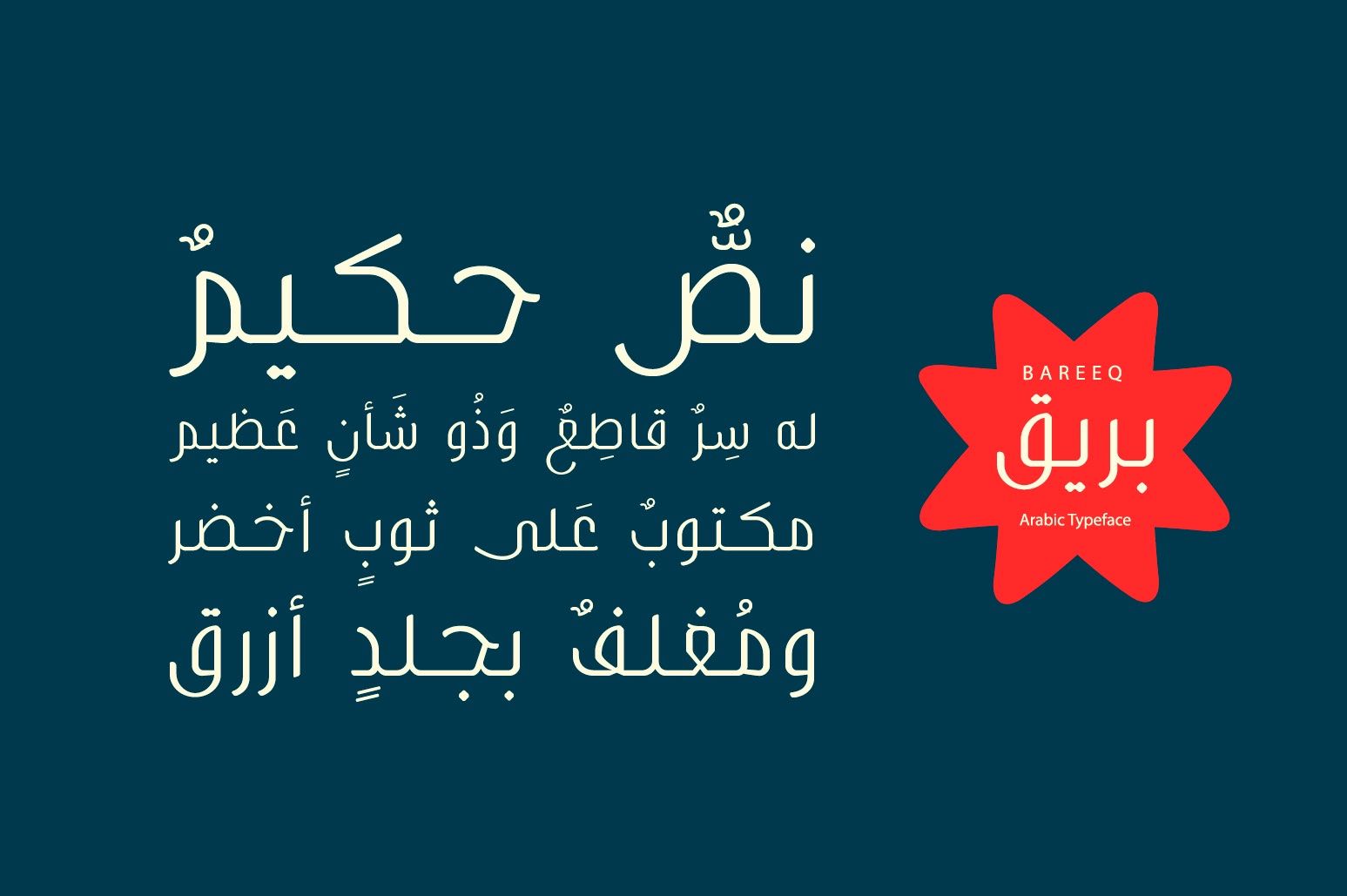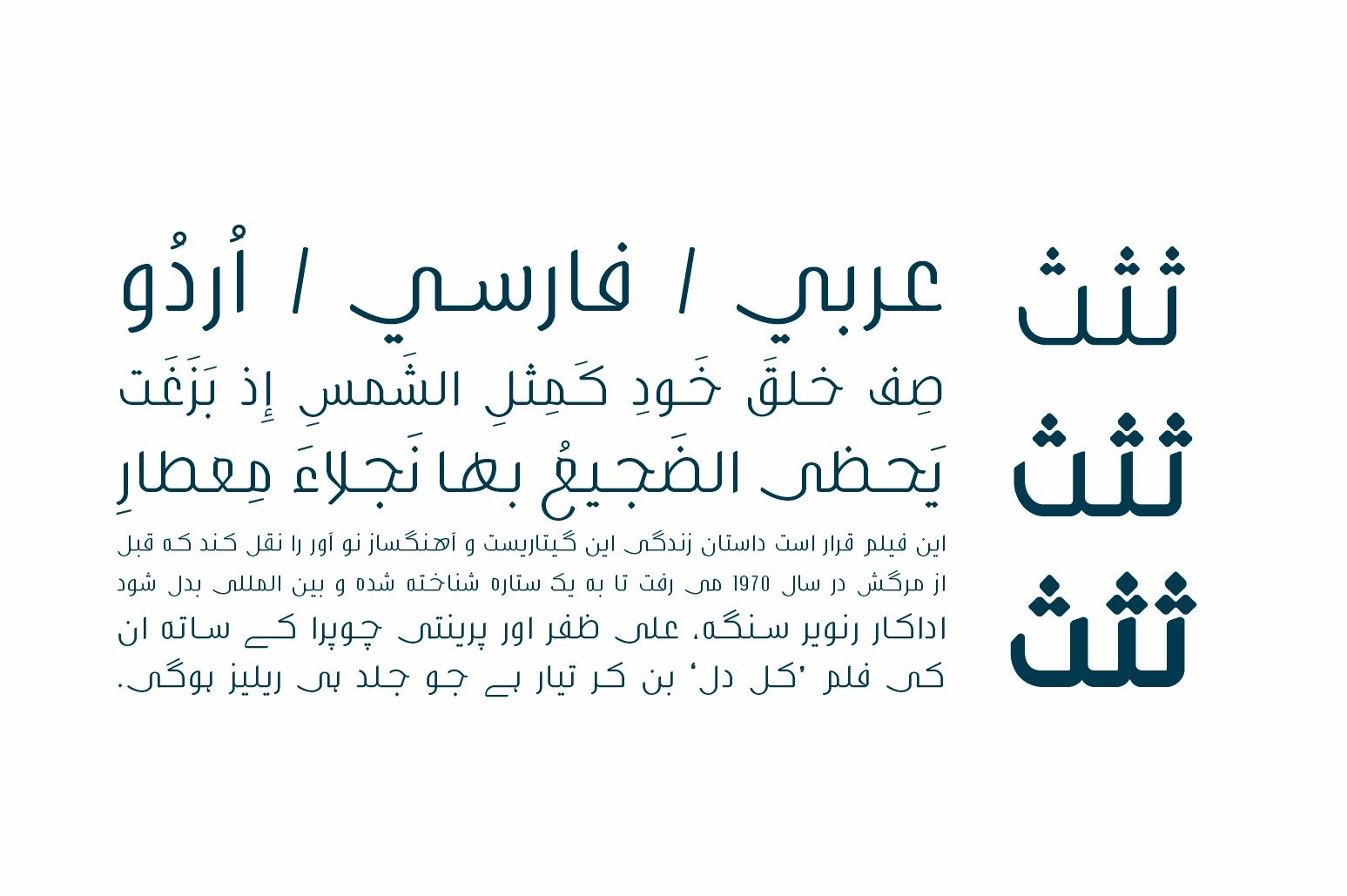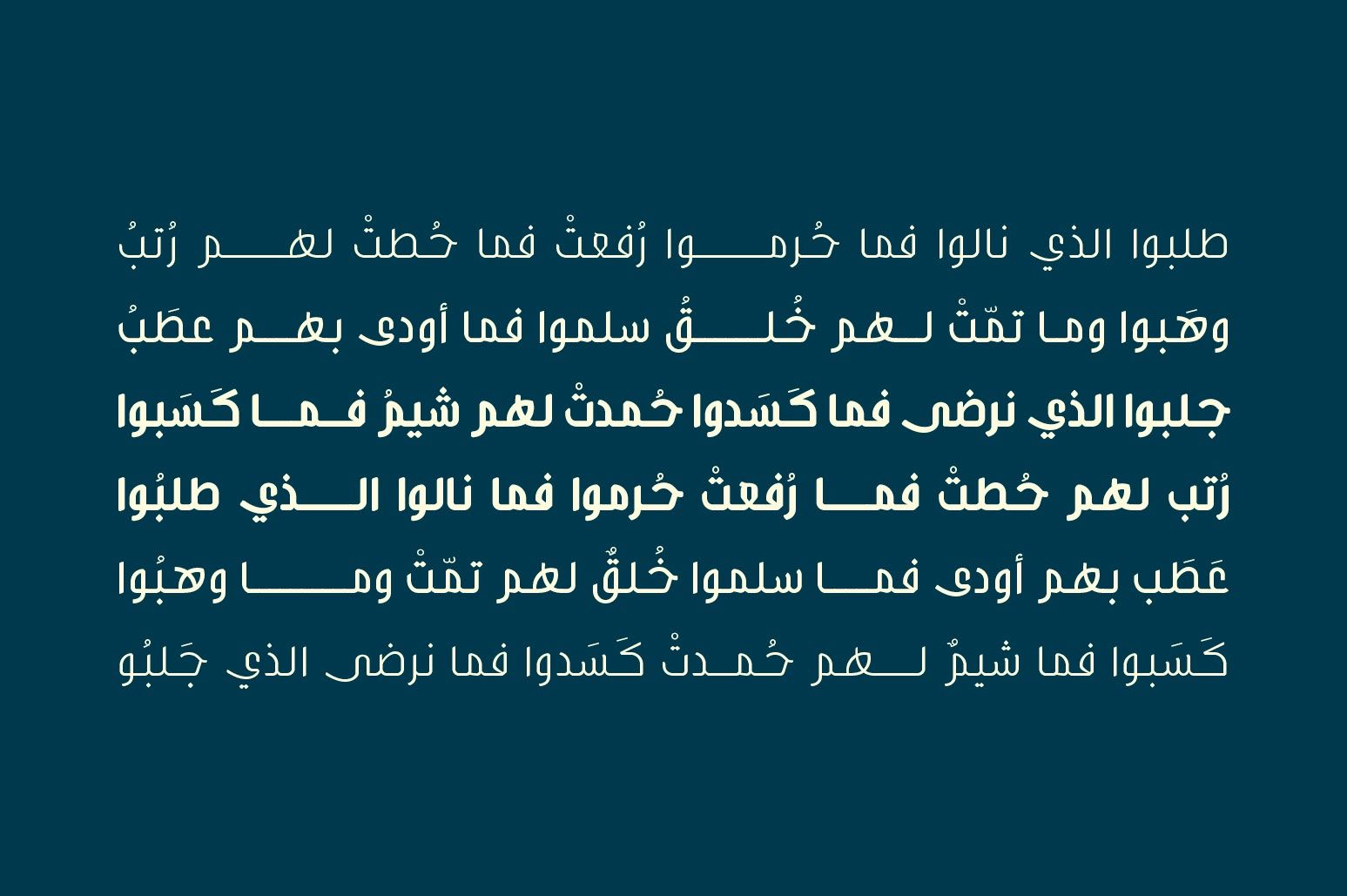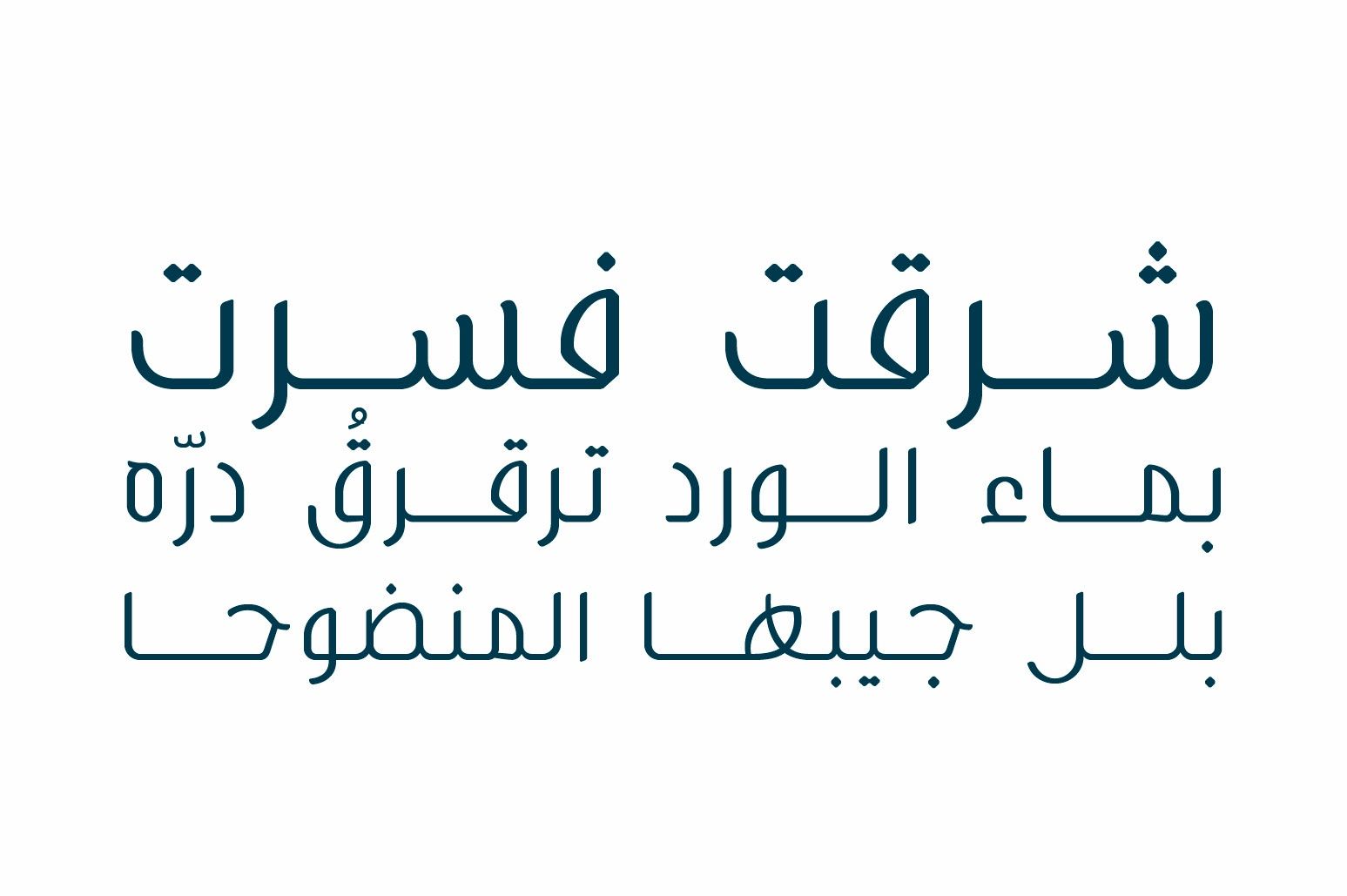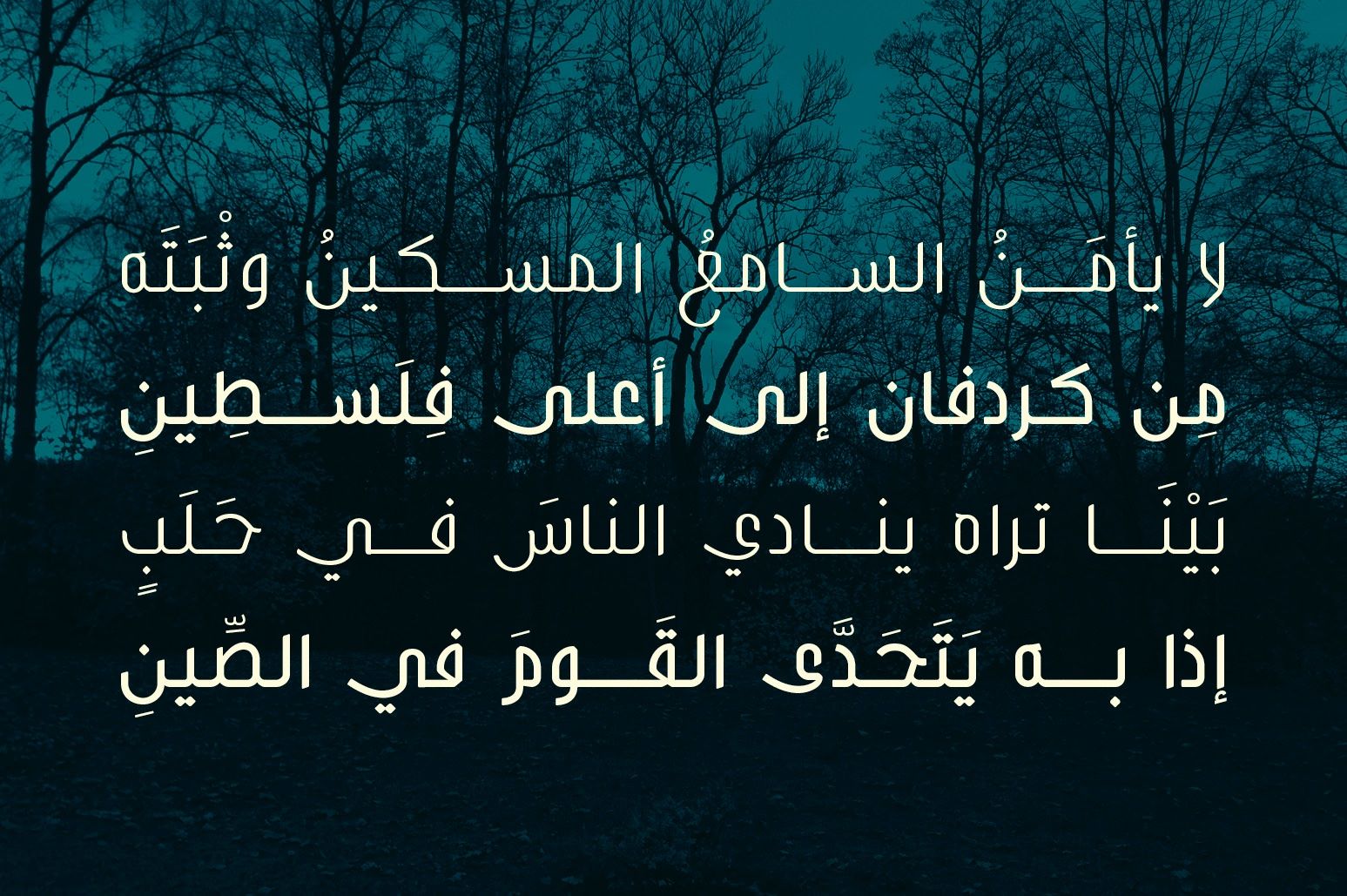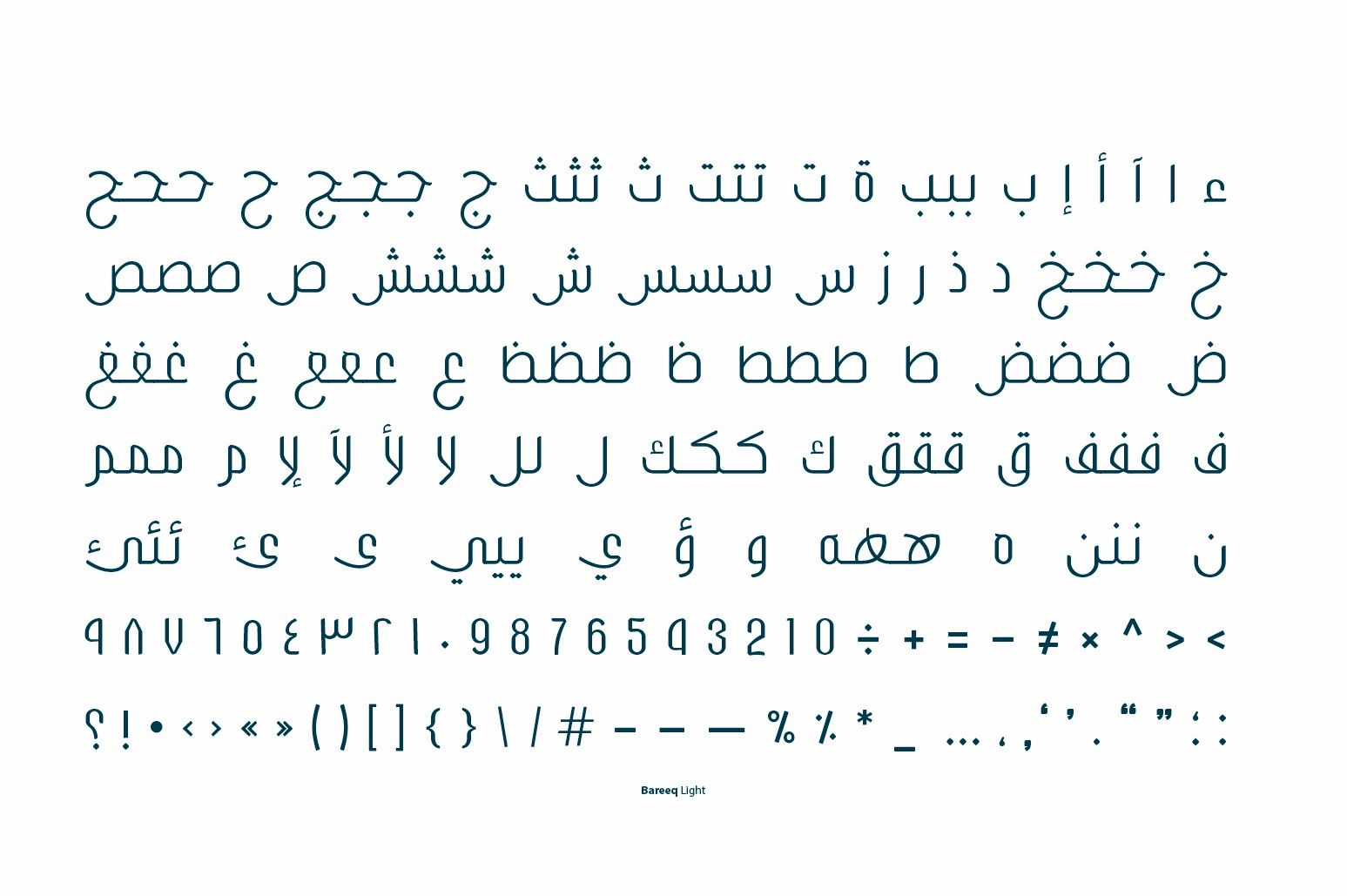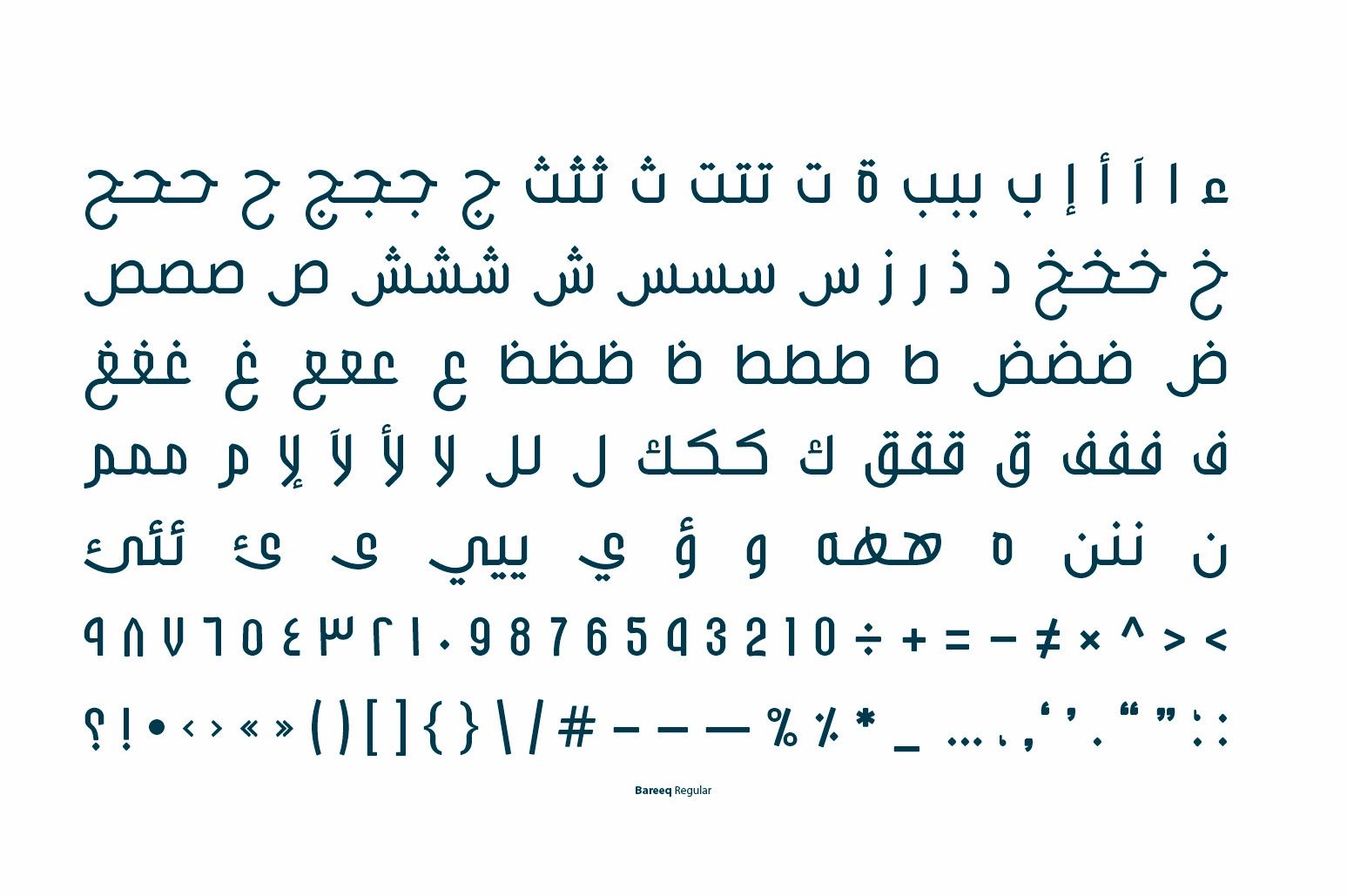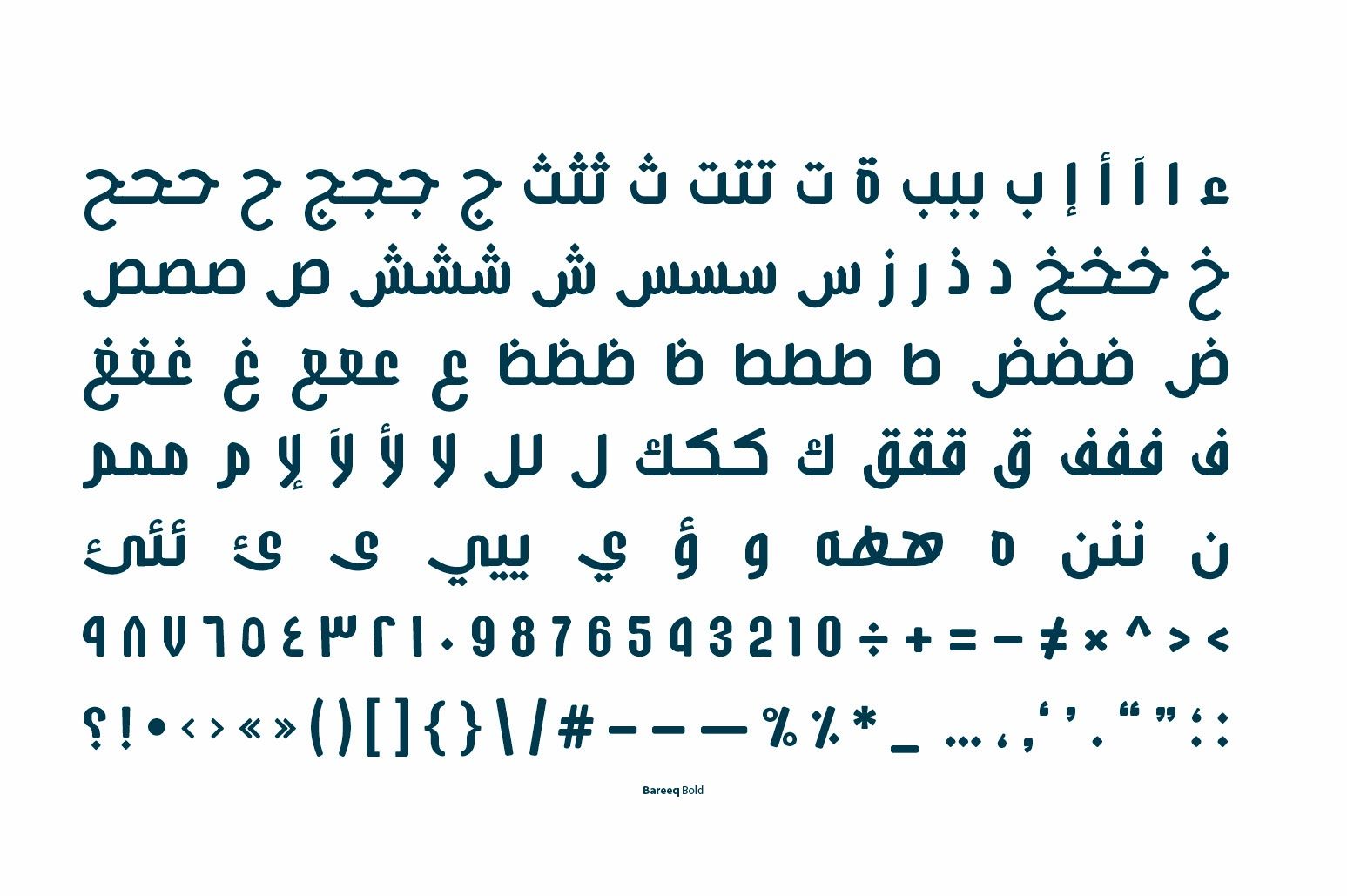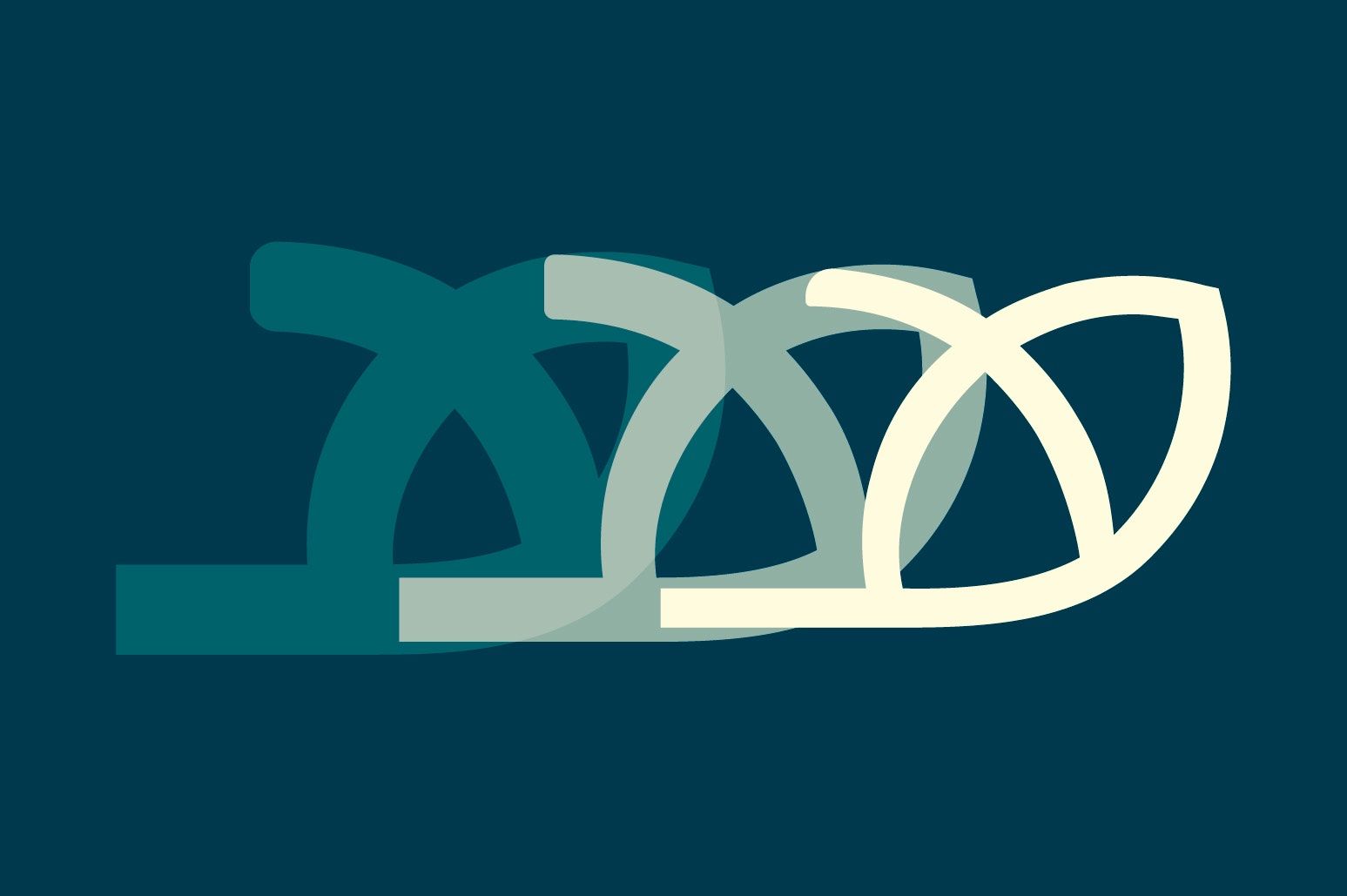
Bareeq, which translates to 'Glitter' in Arabic, is a typeface that blends traditional Arabic script with contemporary design elements. It is versatile for a wide array of design applications, both online and in print. The Bareeq typeface is available in three weights: Light, Regular, and Bold.